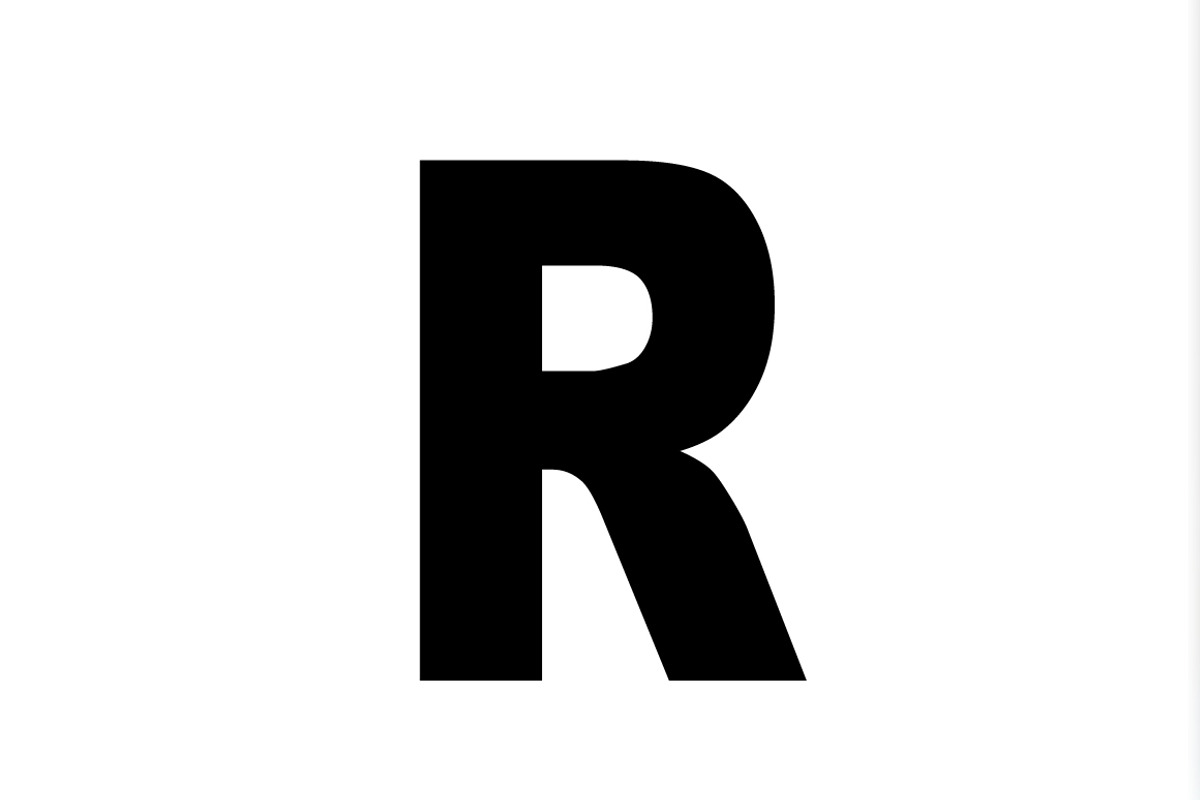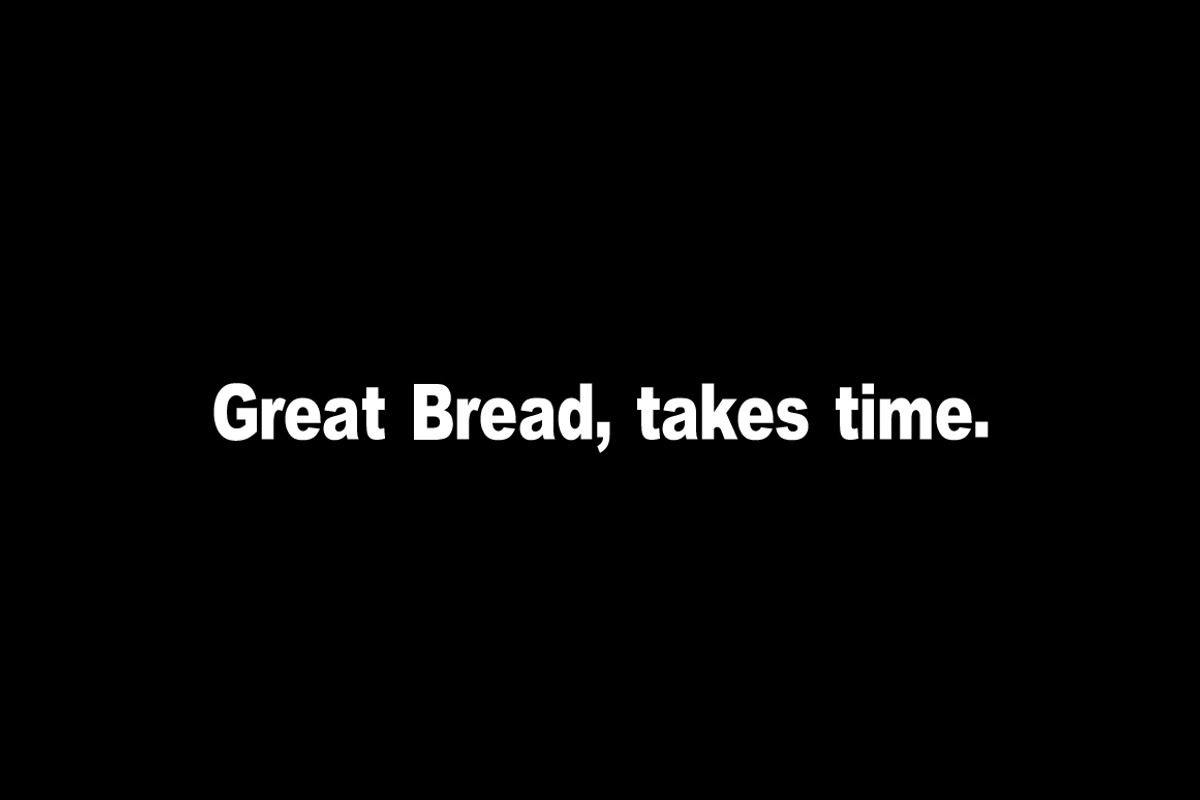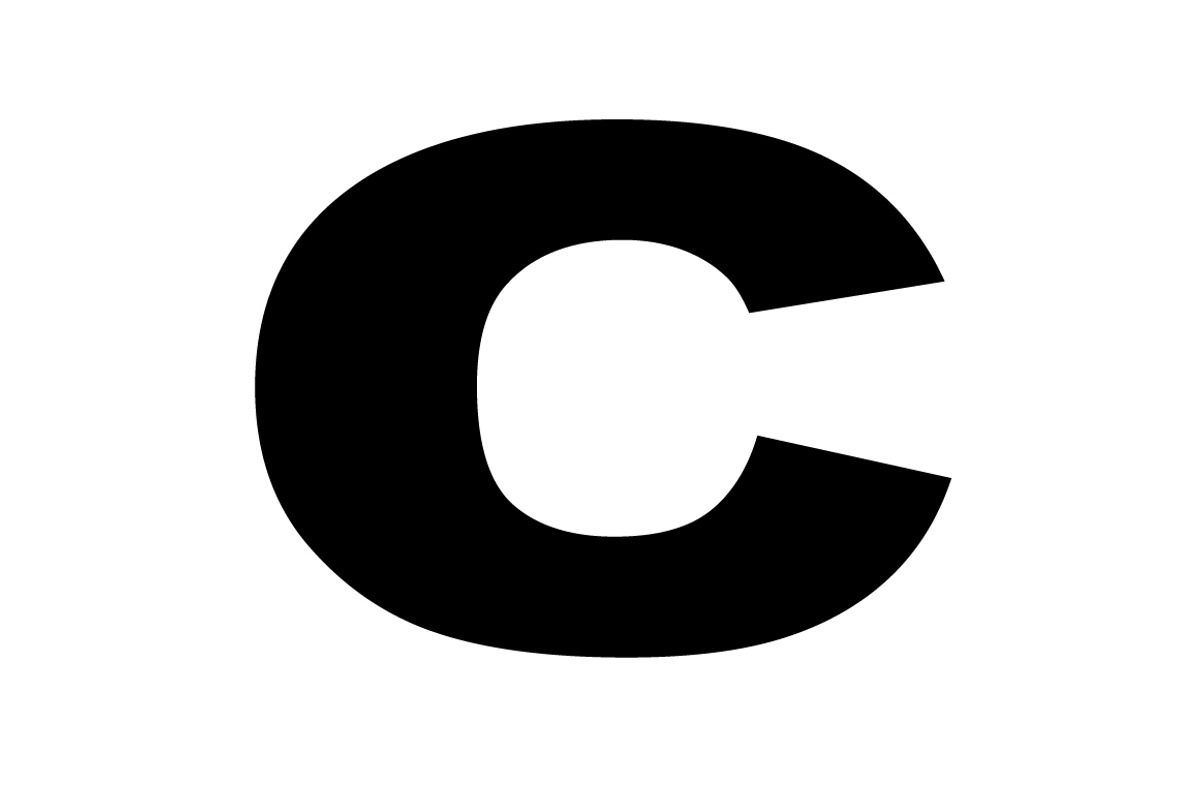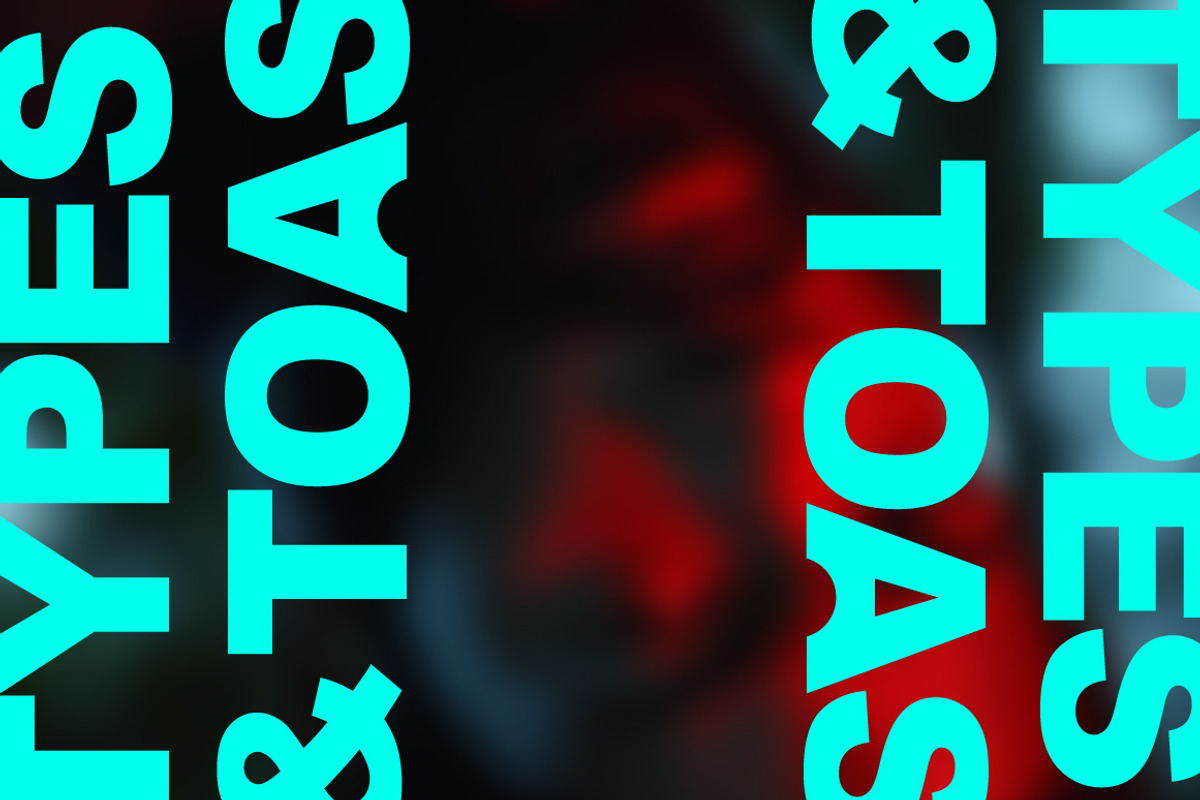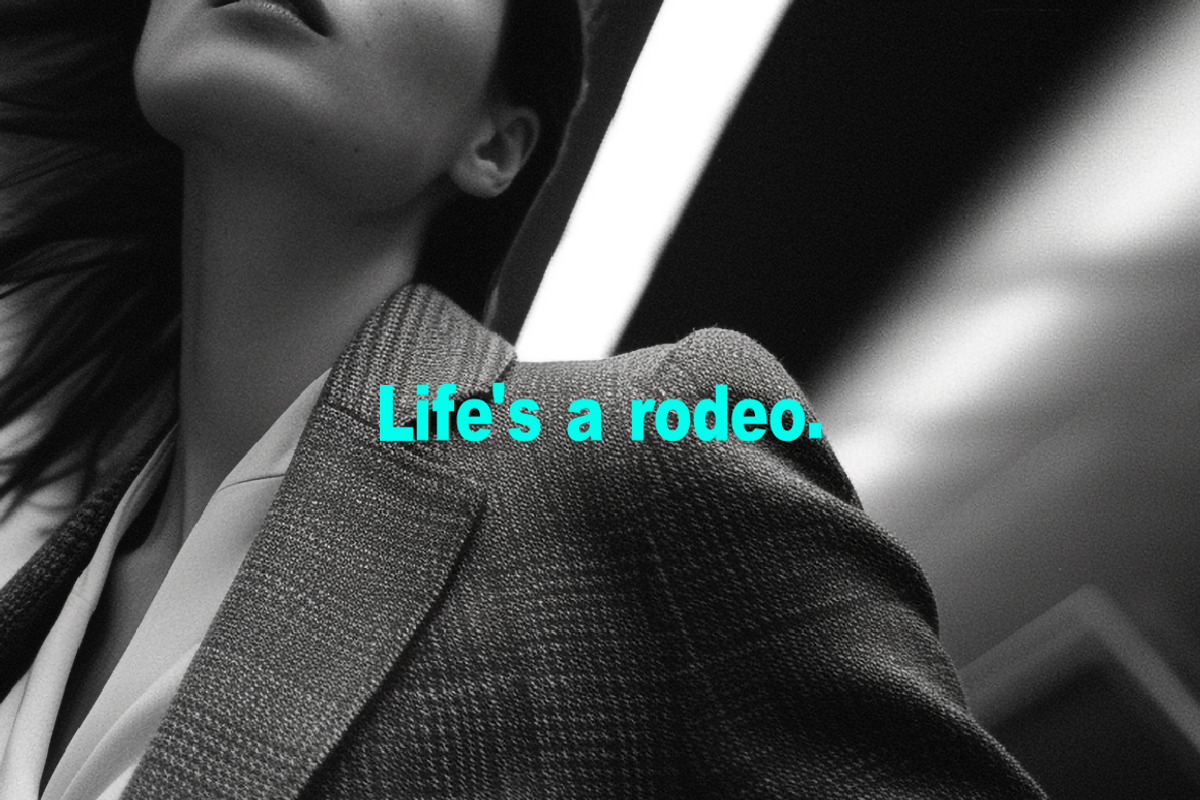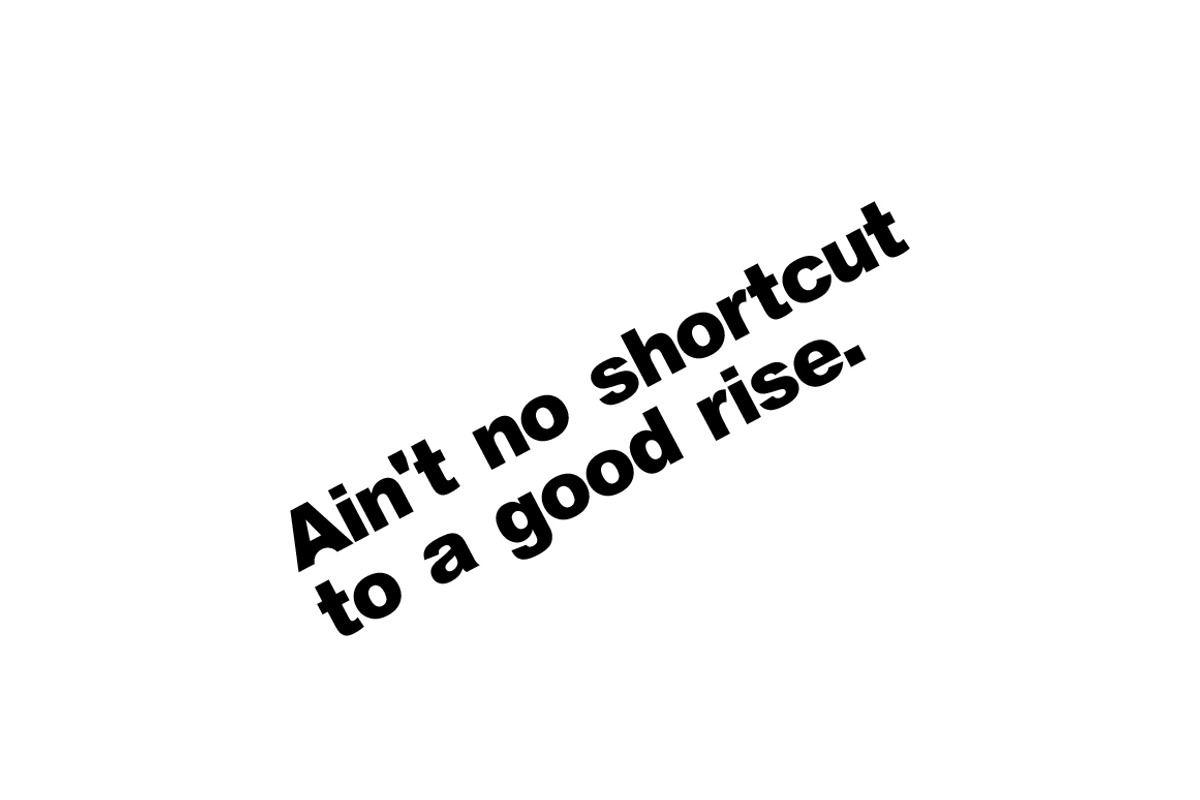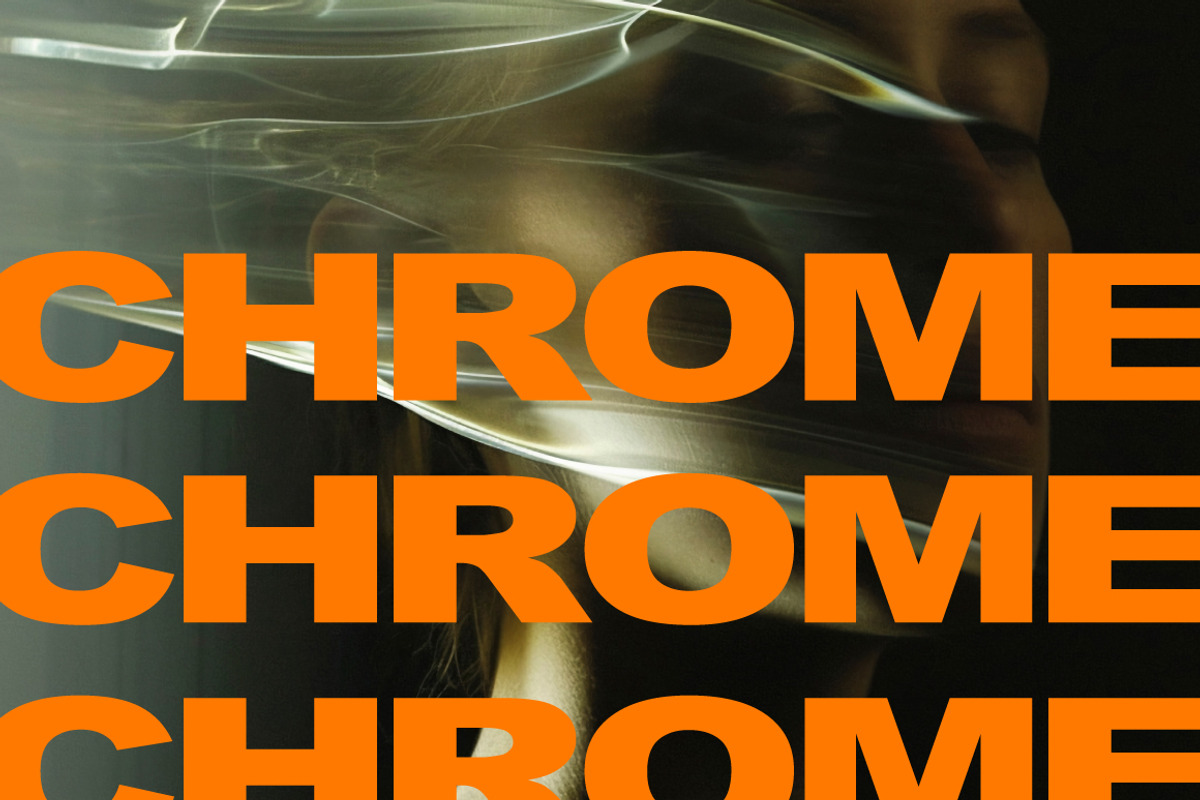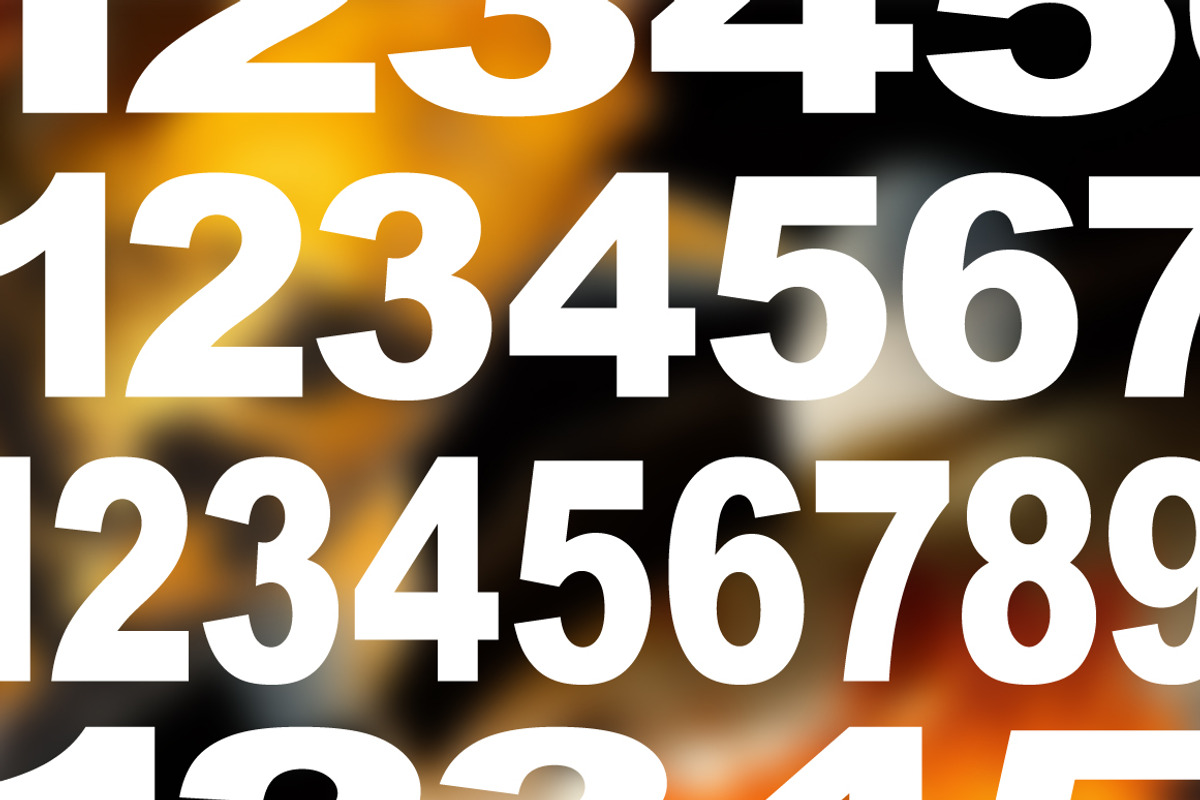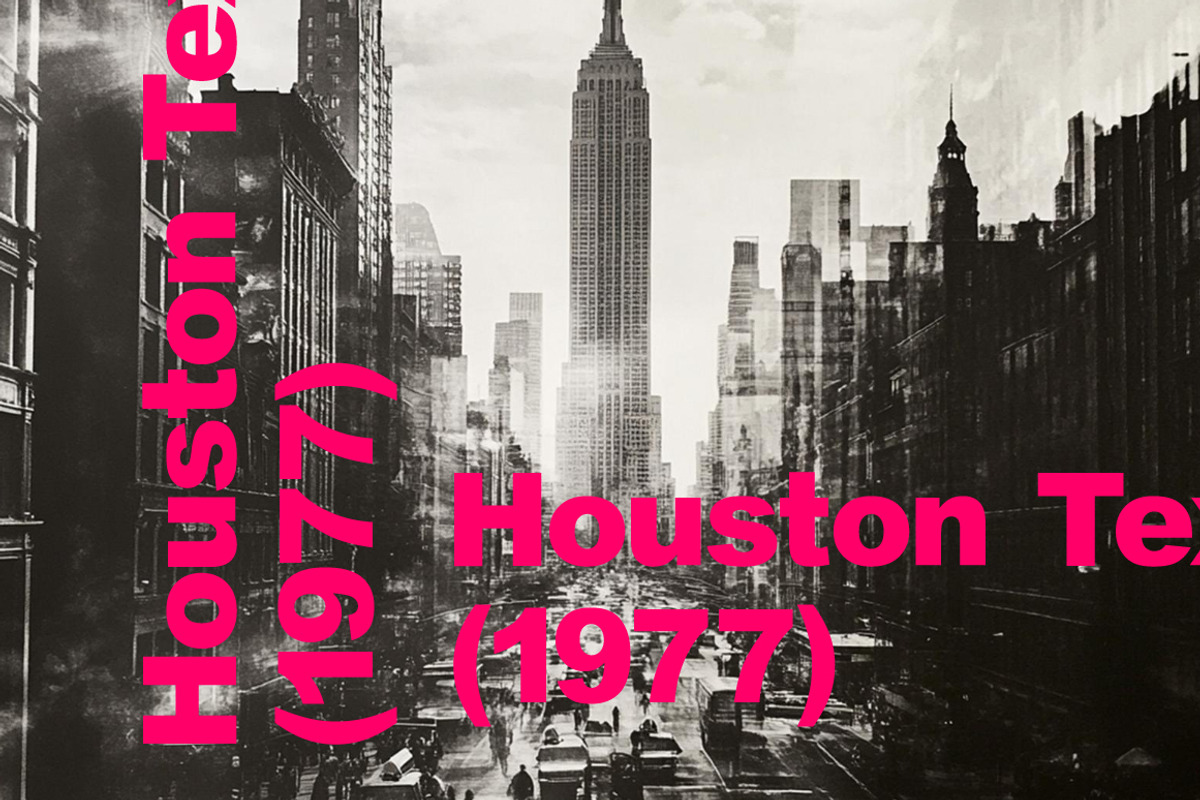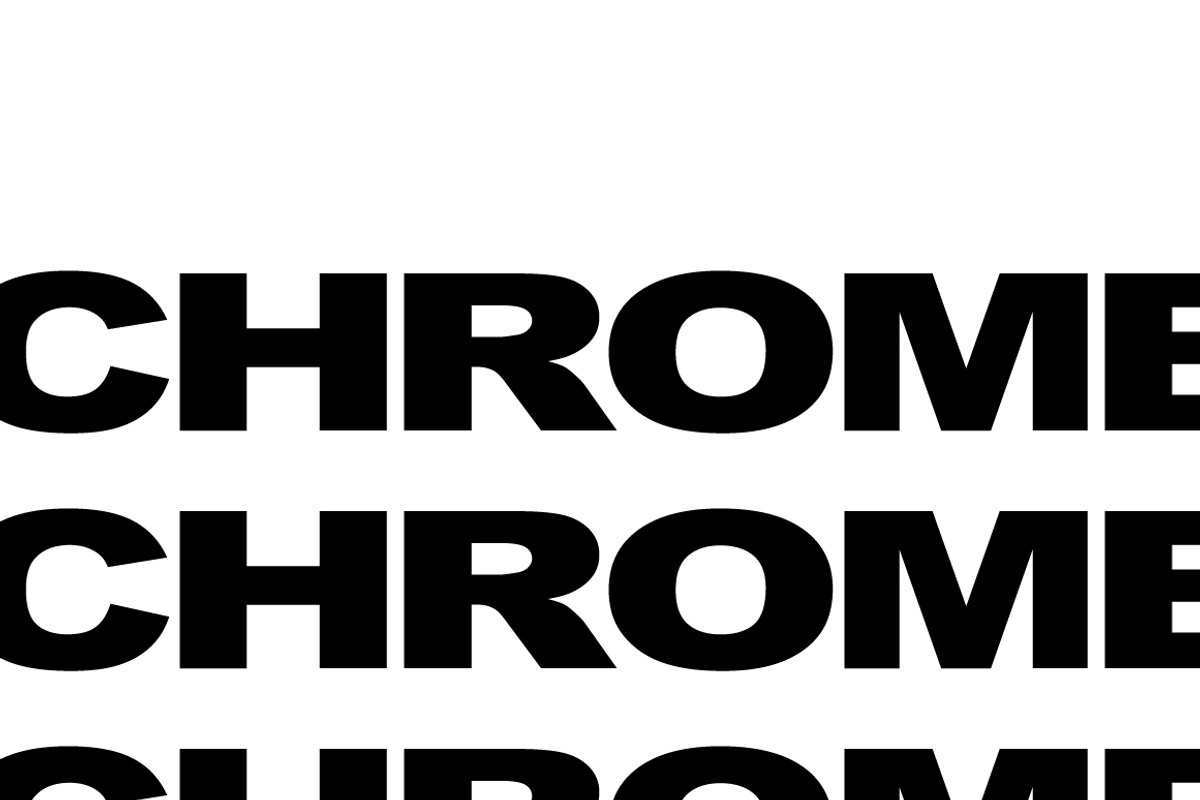
Chrome Sans Serif
💎 Say hello to Chrome Sans Serif – Your Ultimate Design Companion! 💎
🌟 Crafted with Precision: Every curve, every line is meticulously designed to deliver flawless elegance and an unforgettable impact.
🔥 Logotypes that Sizzle: Transform ordinary logotypes into extraordinary statements with Chrome Sans Serif's bold and captivating presence. 🚀🔥
✒️ Social Media Marvel: Capture attention, spark conversations, and inspire action with fonts that demand to be noticed. 📱💬
📚 Editorial Excellence: Elevate your editorial designs to magazine-worthy levels of sophistication. Make your readers stop and stare. 📖🤯